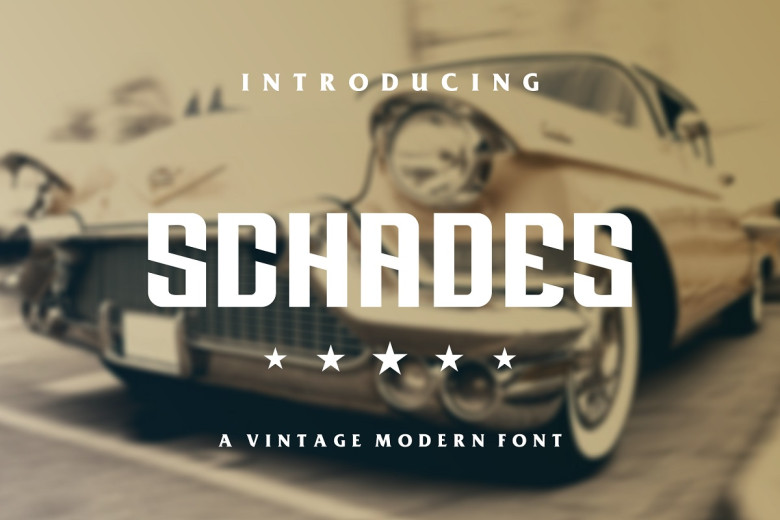
Schades Font
Schades is a bold and modern authentic display typeface. At the same time, with plenty of talk of the greatness that is Courier in mind I am also watching my fingers simmer on the asphalt as if they’re some way to get Heaven from here – a font which seems incomplete on one level but itself even more so for needing anything next to it.
Schades Display Font